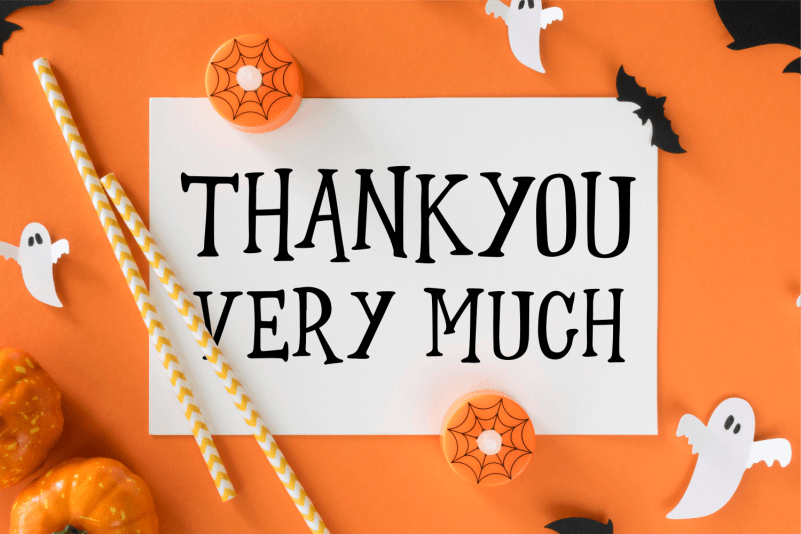
Lonewarc Font
Lonewarc Display Font is a bouncy display font that will impress your audience and make your branding shine. Make your projects dance with this elegant and wonderful font wherever you use it. Use it for your headings, logos, ads, printed quotes, packaging, and even your website or social media branding. Every letter has a unique and beautiful touch, which will make your design come alive!